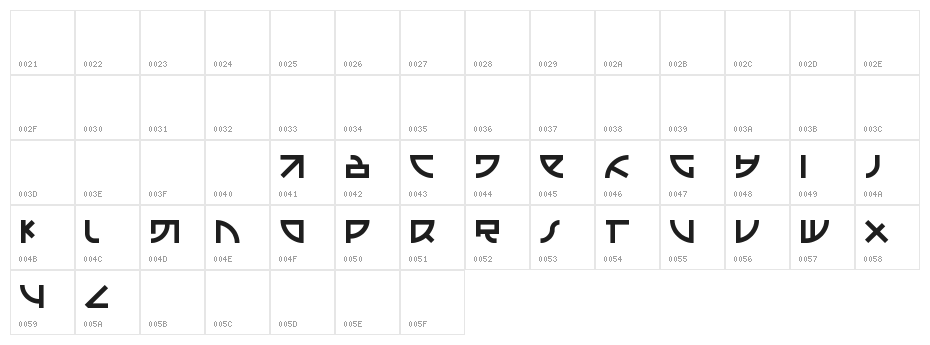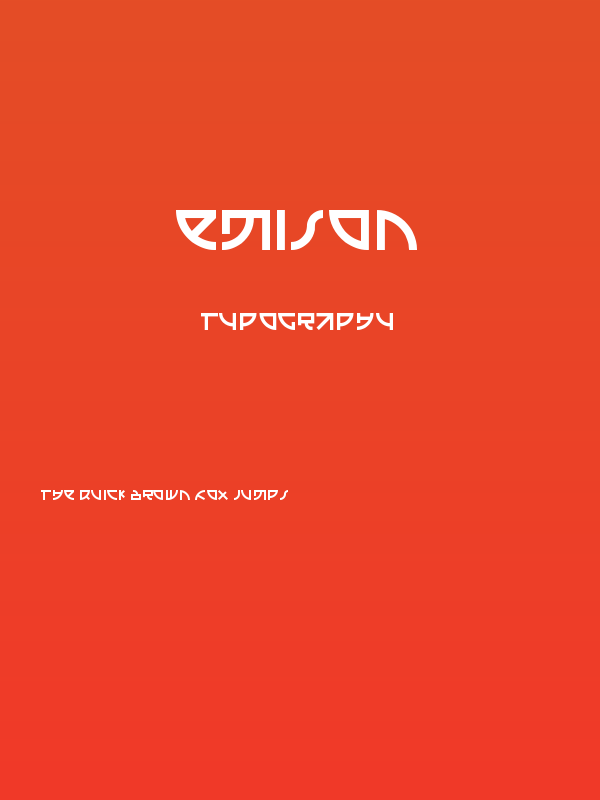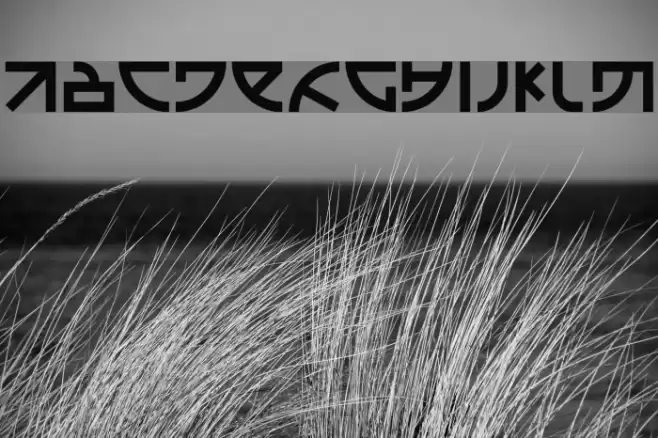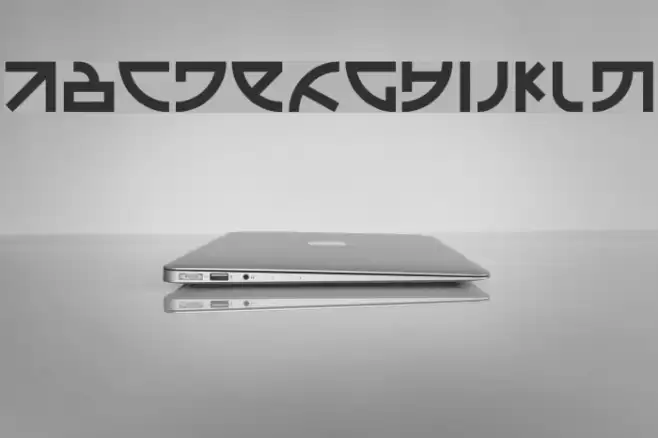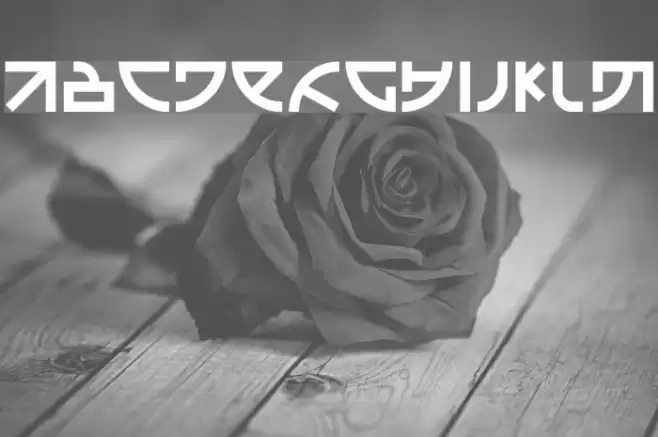
emison Font
emison Description
This font features a futuristic and geometric design, characterized by its angular and bold letterforms. Each character is crafted with sharp edges and a consistent thickness, giving it a strong and modern appearance. The uppercase letters are particularly striking, with a unique style that combines elements of both traditional and contemporary typography. The font's design is highly stylized, making it ideal for projects that require a distinctive and eye-catching typeface. Its uniformity and precision make it suitable for digital and print media, where clarity and impact are essential.
| Proposed Projects | Ideal for sci-fi themed designs, technology branding, video game titles, and modern posters. |